- Mobile entertainment fonts have seen rapid growth due to changing consumption patterns and the rise of mobile creators.
- Approximately 90% of ‘phone customization’ (Phone Deco) customers make repeat purchases, indicating high satisfaction and loyalty.
- Fonts are emerging as a new emotional communication tool, similar to emojis, creating a new market.
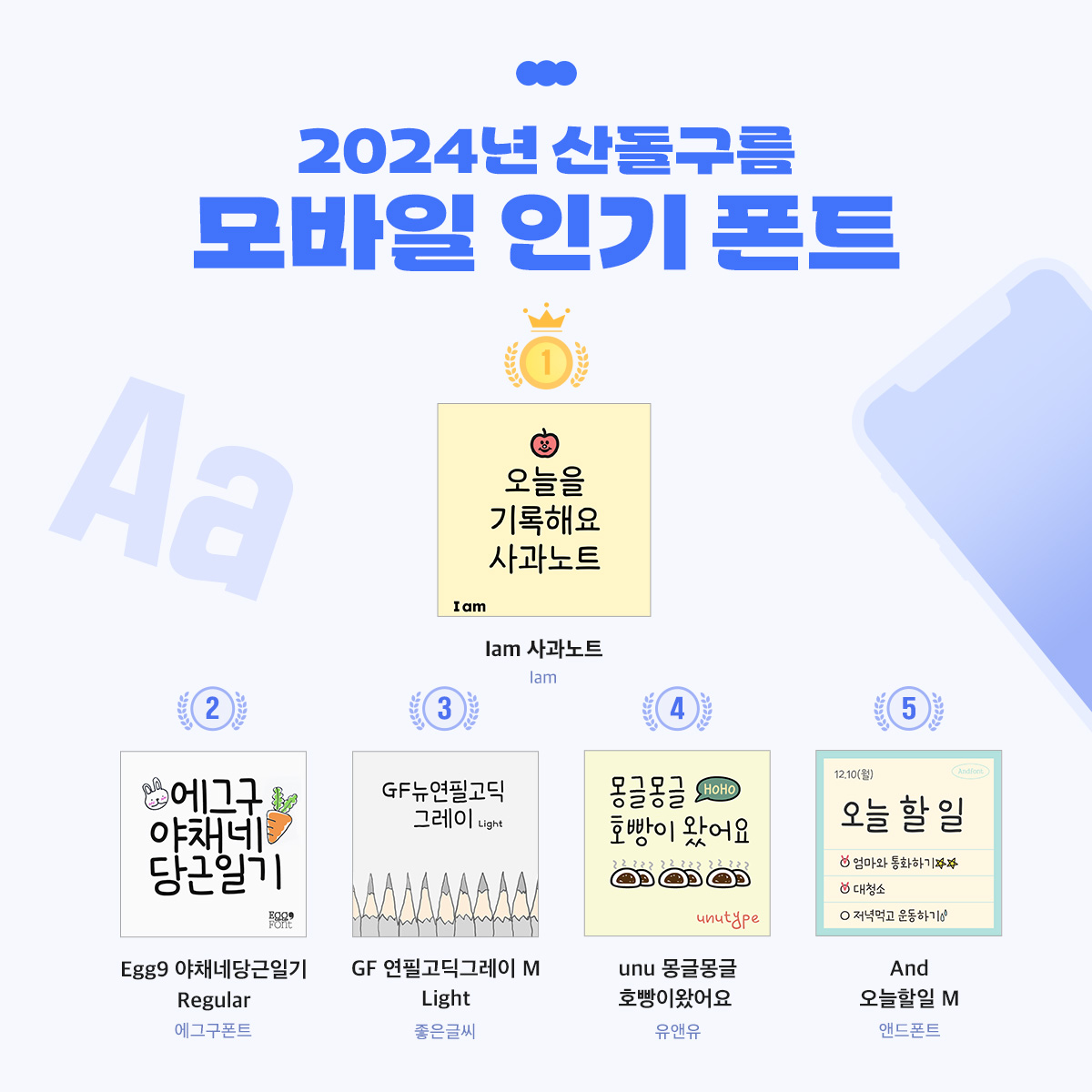
As the trend of valuing "personal uniqueness" spreads, fonts are gaining attention as an entertainment element beyond a mere productivity tool.
Sandoll Inc. (CEO Young-ho Yun), a creative content platform company operating the font platform Sandoll Cloud, announced on the 24th that the payment volume for mobile fonts in 2024 increased sixfold compared to 2022.
The Sandoll Cloud mobile app offers over 2,000 fonts, including more than 1,000 free fonts optimized for mobile environments. In particular, since Sandoll Cloud fonts became available for use on KakaoTalk on iOS starting in July 2022, mobile font sales have consistently grown, leading to a sixfold increase over two years.
This reflects how fonts have become a tool for emotional communication, similar to how people use emojis to express emotions in messaging apps like KakaoTalk. Consumers are now using fonts to convey their own "mood" and personal style, indicating that fonts have established themselves as a form of emotional self-expression rather than just a way to display text.
In particular, consumers have shown increased satisfaction when selecting fonts that effectively express their individuality or mood, which has also driven repeat purchases.
As of last year, the percentage of Sandoll Cloud mobile font users who made multiple purchases accounted for 88% of total sales, demonstrating a clear trend of repeat purchasing among users who have experienced font usage. This indicates that fonts are becoming not just a one-time consumable but a sustainable digital asset that users repeatedly rely on.
Historically, handwriting was a means of expressing emotions and thoughts and could even serve as a form of personal identification, similar to a fingerprint. Now, for the MZ generation, fonts are taking over that role. As more consumers perceive fonts as a tool for expressing individuality, there has been an increasing preference for handwritten or uniquely styled fonts. This trend is also evident in the 2024 mobile font usage data.
The most popular mobile fonts last year were:
1. Iam Sagwa Note
2.Egg9 Yachaene Dangeun Ilgi Regular
3.GF Pencil Gothic Gray M Light
4.unu Mongle Mongle Hoppang Iwasseoyo
5.And Today’s To-Do M
Most of these top fonts feature a cute, handwritten feel, indicating that users are drawn to expressive and emotionally resonant styles. The rising popularity of these emotional fonts is driven by the growing use of fonts on platforms such as KakaoTalk, GoodNotes, and Instagram as tools for personal expression.
As the consumer base for fonts expands, the demand for mobile fonts is increasing, reinforcing the importance of fonts in the mobile environment.
With the growing popularity of mobile fonts, the entertainment font market is also experiencing rapid growth. As font consumers expand from professional designers to general users, fonts are no longer just a means of reading text — they have become a tool for expressing emotion and reinforcing individuality. This shift is expected to further expand the mobile font market.
A Sandoll spokesperson stated, “The trend of using fonts to express individuality is spreading even in everyday communication spaces like KakaoTalk. As vlogging, casual webtoons, and other forms of mobile-based creative activity increase, the role of fonts is expected to grow even further. We plan to release not only a wider variety of fonts but also technologies to eliminate user inconvenience and enable more expressive communication.”